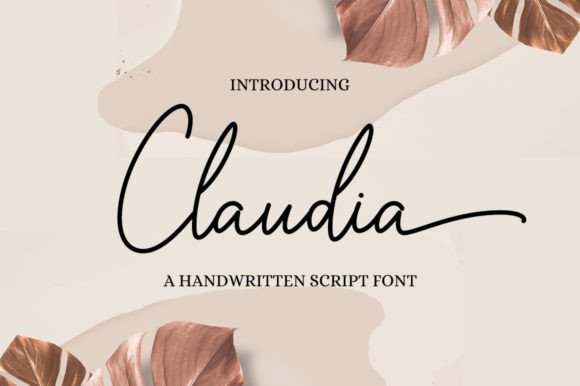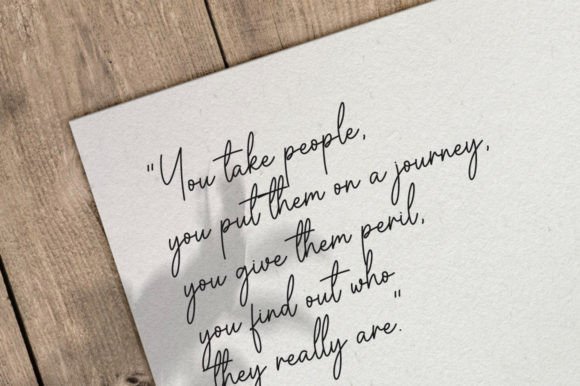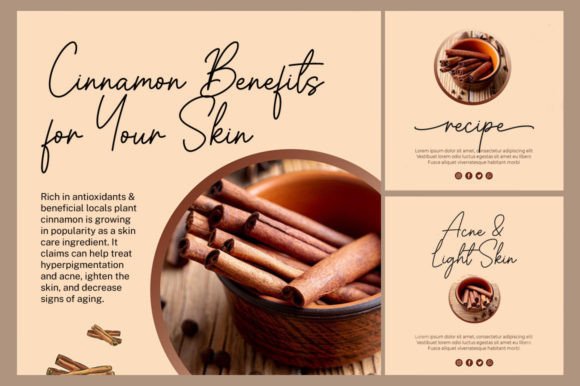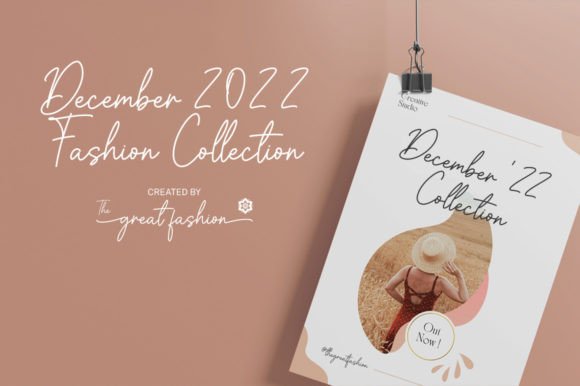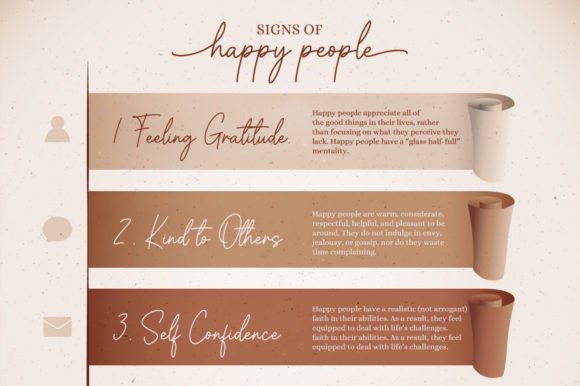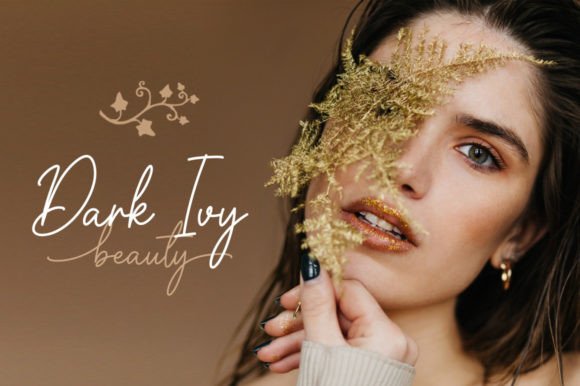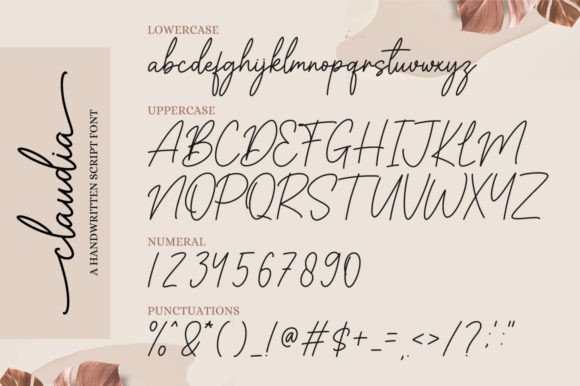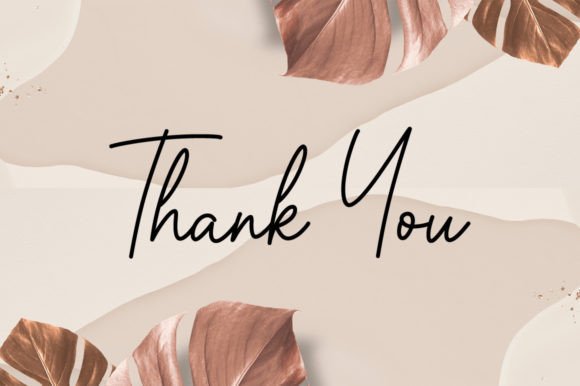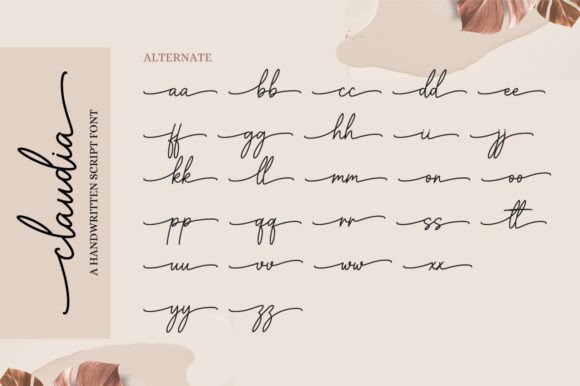
Claudia Font
About Claudia Font
Claudia Font is a delicate handwritten script that combines elegance with timeless style. With flowing strokes and beautifully balanced characters, this typeface adds charm and refinement to both personal and professional projects. Because of its versatile design, Claudia Font is perfect for invitations, logos, posters, social media, and branding. In addition, Claudia is PUA encoded, giving users easy access to all glyphs and swashes.
A Flowing Handwritten Typeface with Delicate Style
Handwritten fonts naturally bring warmth and authenticity, and Claudia Font enhances these qualities with graceful rhythm and smooth strokes. Its delicate details provide sophistication, while its elegant curves ensure readability. Moreover, its timeless structure adapts seamlessly to both classic and modern layouts. As a result, this handwritten script is a dependable choice for designers looking for refinement.
For personal stationery and event projects, Claudia Font is an excellent companion. For example, it can elevate a wedding invitation into a memorable keepsake. In addition, it works beautifully for birthday greetings, thank-you notes, and holiday cards. Because of its flowing elegance, every design feels heartfelt, stylish, and original.
A Script Typeface for Logos and Branding
Brands and professionals seeking sophistication can rely on Claudia Font. It adds individuality and charm to logos, product labels, and packaging. Furthermore, on social media, it enhances posts, banners, and promotional content with creativity. When paired with minimalist sans serif typefaces, Claudia Font achieves harmony between elegance and professionalism.
Another strength of ClaudiaFont is its adaptability across different platforms. In print, it shines on brochures, magazines, posters, and merchandise. Digitally, it elevates websites, blogs, and presentations with authenticity. Since it remains legible across both small and large sizes, this script typeface is practical for many creative applications.